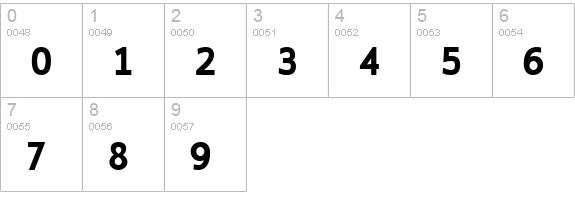
Ligurino Bold Font Details
Ligurino Bold is a strong, high-contrast variant in the Ligurino typeface family \xE2\x80\x94 well suited to headlines, attention-grabbing titles, and strong calls-to-action.
Ligurino Bold font is a stunning display typeface that exudes elegance and sophistication. Its bold and commanding presence makes it perfect for headlines, logos, and branding projects that require a strong visual impact. With its clean lines and modern design, Ligurino Bold font is sure to make a statement and captivate your audience. This versatile font is suitable for a wide range of design applications, from print to digital media. Whether you're creating a sleek magazine layout, designing eye-catching packaging, or crafting a memorable social media graphic, Ligurino Bold font will elevate your project to new heights. The best part? Ligurino Bold font is available for free download at FontsMarket.com, making it accessible to designers of all levels. Don't miss out on the opportunity to add this exceptional font to your collection and take your designs to the next level.